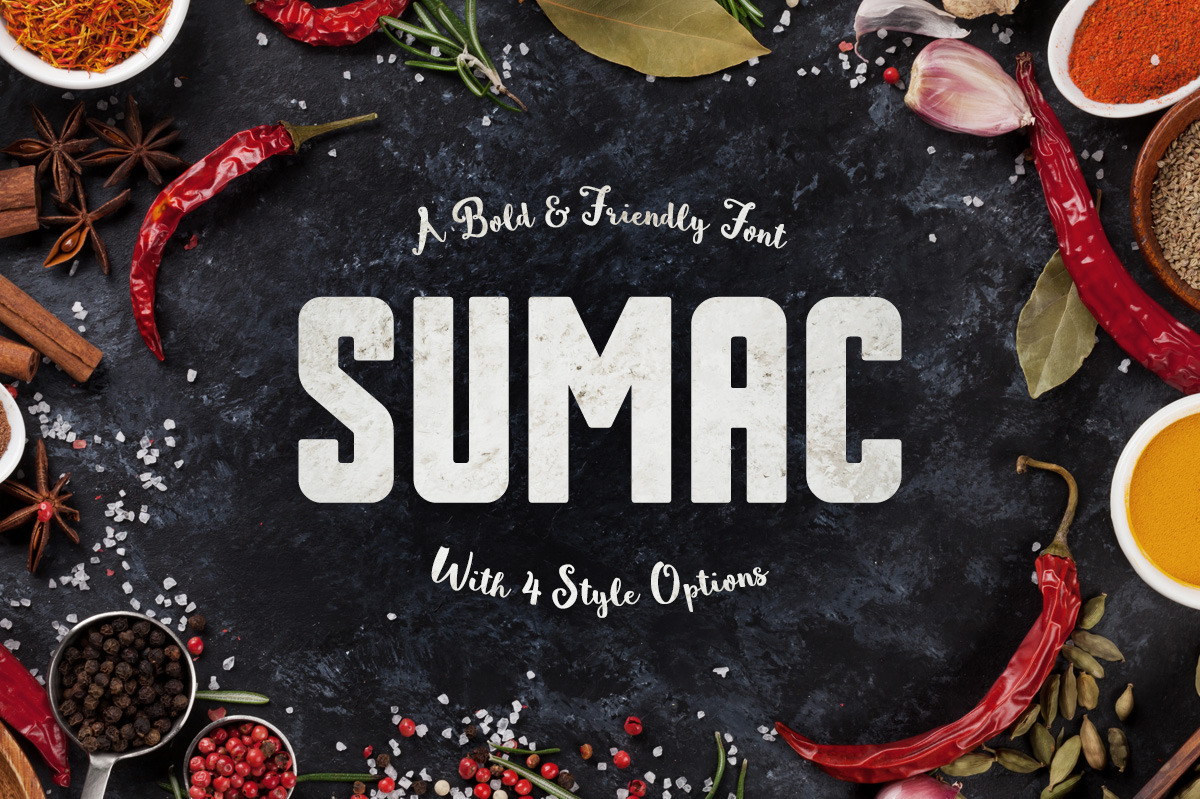
Sumac Typeface
Sumac is a big and friendly typeface that's great for titles, book covers, posters and any other project where you need an impactful but personable headline. Sumac comes in 4 styles and includes uppercase multilingual letters, numbers and punctuation.